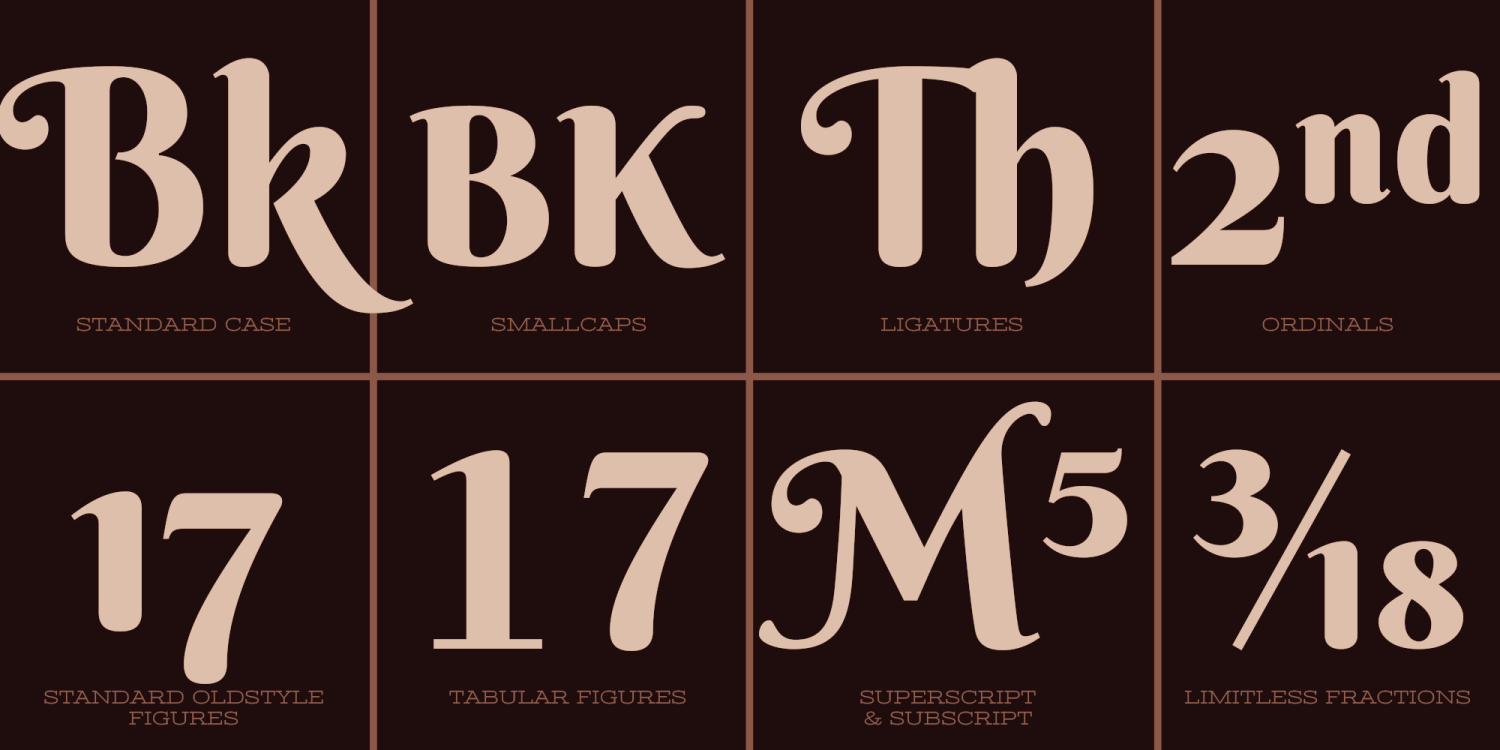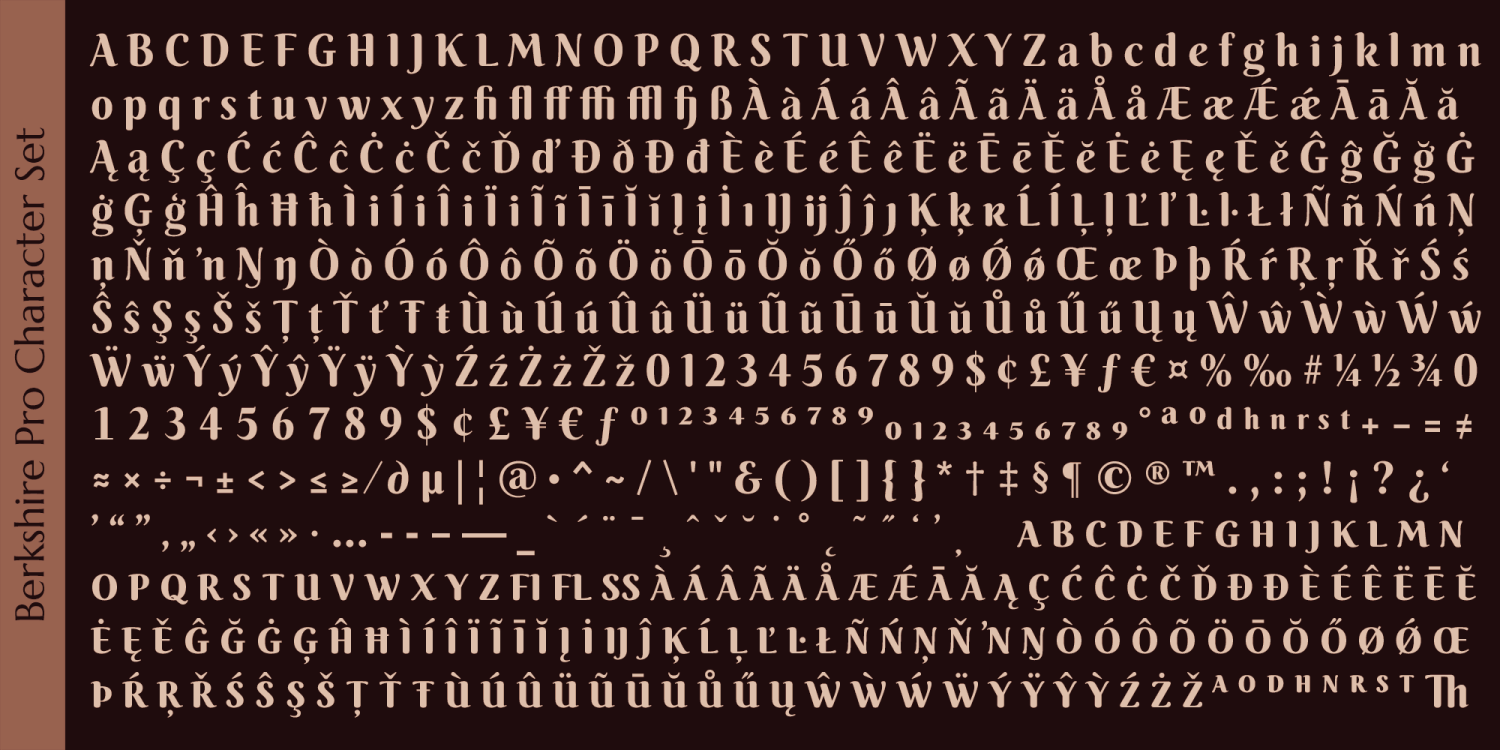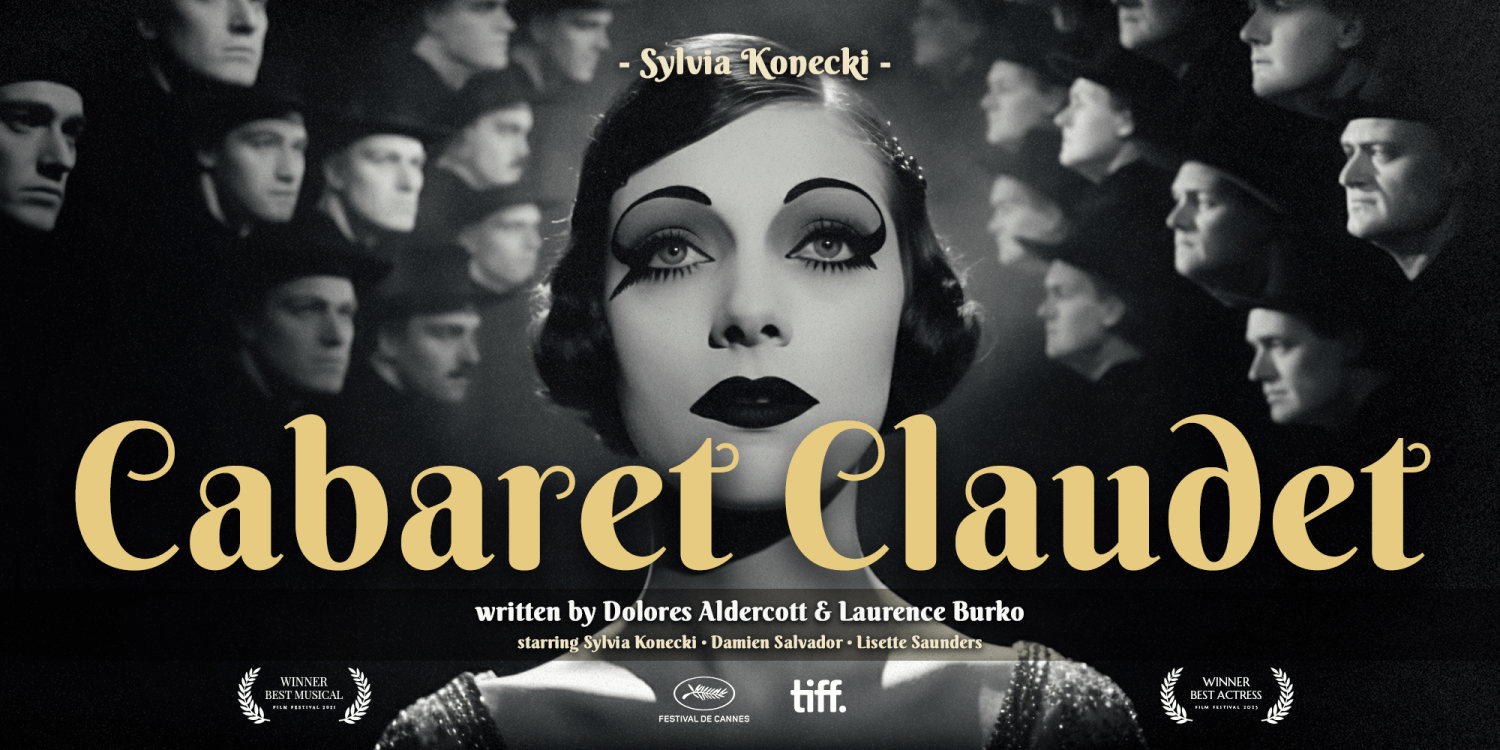
About Berkshire Pro
From Swashes to Standards to Loopy The Berkshire Pro family began with Berkshire Swash Pro, an alluring semi-sweet typestyle with a bold yet feminine flair to it. But from the beginning, this was always meant to be a trio family. Finally this family…